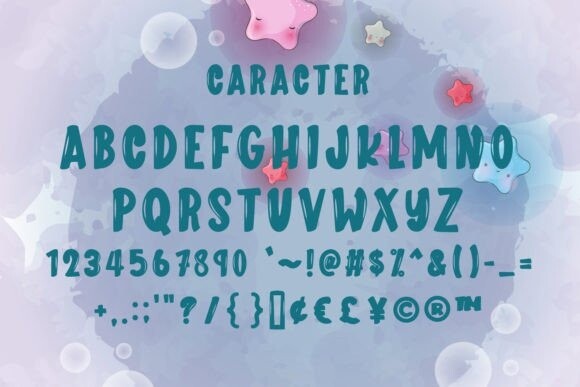
Hello Smooth Font
Hello Smooth Font is a playful and cool display font. No matter the topic, this font will be an incredible asset to your fonts library, as it has the potential to elevate any creation.